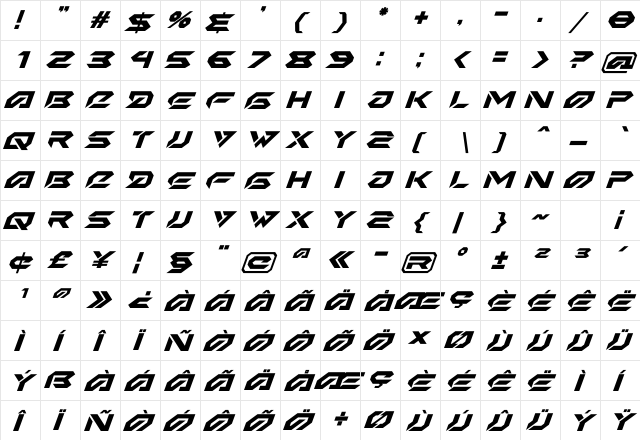
Iron Shark Italic Regular
Design Context for Iron Shark Italic Typeface
Iron Shark Italic is a composed and adaptable typeface that performs quietly and consistently across a wide range of design contexts. The dynamic lean of this cut emphasises speed and emphasis in any layout.
Pro Tip: Try Iron Shark Italic for annotation and caption copy alongside an upright companion — the contrast in angle creates a dynamic but ordered typographic system.